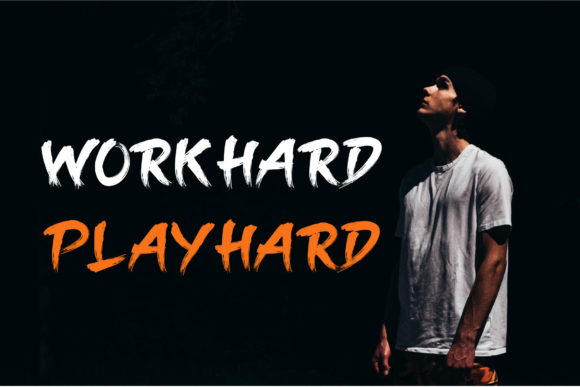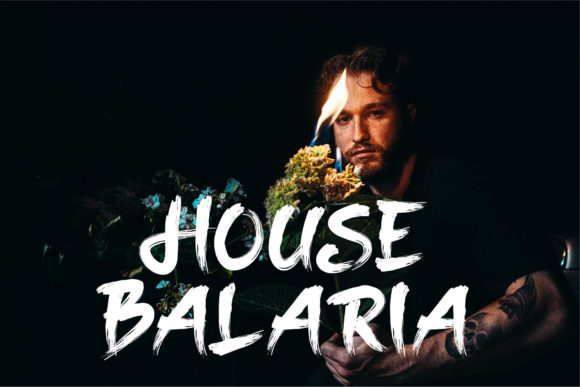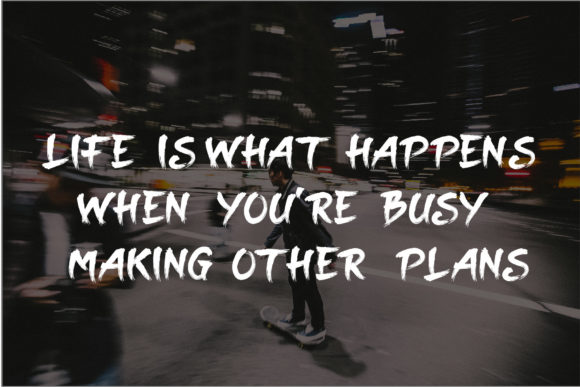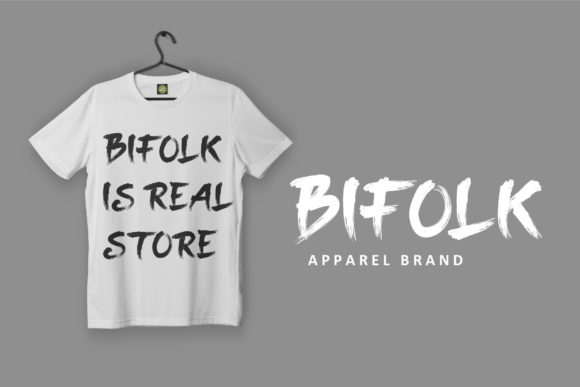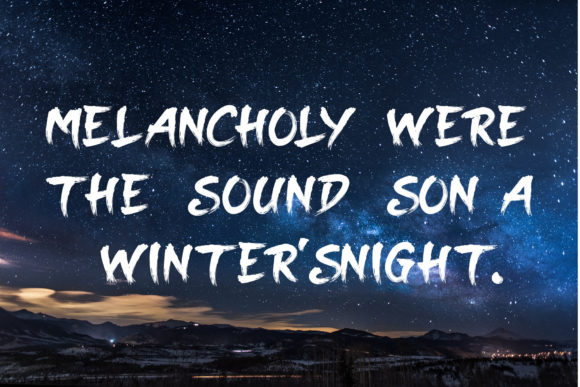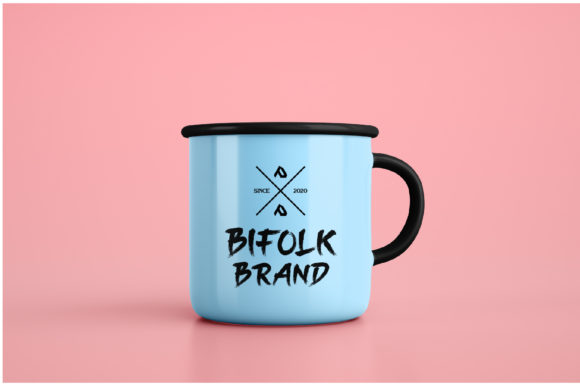
The Designer’s Delight: Unpacking the Bifolk Font
I’ll never forget the time I was working on a branding project for a crafty startup, and I just couldn’t find the right font to capture their playful yet professional vibe. That’s when I stumbled upon the Bifolk font, and it was love at first sight! 😍 This cool, bold brushed display font has been a game-changer for my design workflow, and I’m excited to share its awesomeness with you.
So, what makes Bifolk so special? Here are the things that I just can’t get enough of:
- ✨ Unique Brushed Look: The Bifolk font boasts an original, hand-brushed appearance that’s perfect for adding a touch of personality to your designs.
- ✅ Versatility: Whether you’re working on letterheads, titles, or stationery, Bifolk’s bold and playful style fits right in.
- 💥 Attention-Grabbing: This font is sure to make your text stand out, making it ideal for headings, titles, and other prominent design elements.
Of course, no font is perfect, and Bifolk has a few minor quirks to keep in mind:
- 🤔 Limited Legibility: Due to its bold, brushed nature, Bifolk might not be the best choice for body text or smaller font sizes.
- ⚠️ Glyph Limitations: While Bifolk comes with a range of glyphs and OpenType features, it might not have every special character or symbol you need.
The Story Behind Bifolk: Designer Inspiration
While the true story behind Bifolk’s creation is unknown, it’s easy to imagine a designer with a passion for hand-brushed typography and a love for the imperfect, organic look. Perhaps they were inspired by street art, graffiti, or the world of crafty DIY projects. Whatever the motivation, the end result is a font that’s both unique and versatile.
| Font Name | Bifolk Font |
| Author | The1stWinner |
| What type of projects is Bifolk best suited for? | Bifolk is perfect for creative projects that require a bold, eye-catching font, such as branding, packaging, posters, and social media graphics. |
| Can I use Bifolk for body text or smaller font sizes? | While Bifolk is primarily designed for display text, it can be used for short paragraphs or smaller font sizes if you want to add emphasis or create visual interest. |
| Does Bifolk come with any special OpenType features? | Yes, Bifolk includes a range of OpenType features, such as stylistic alternates and glyphs, to help you customize your text and add visual flair. |
| Is Bifolk suitable for digital use? | Absolutely! Bifolk is designed to look great on both digital and print platforms, making it a versatile choice for a wide range of applications. |